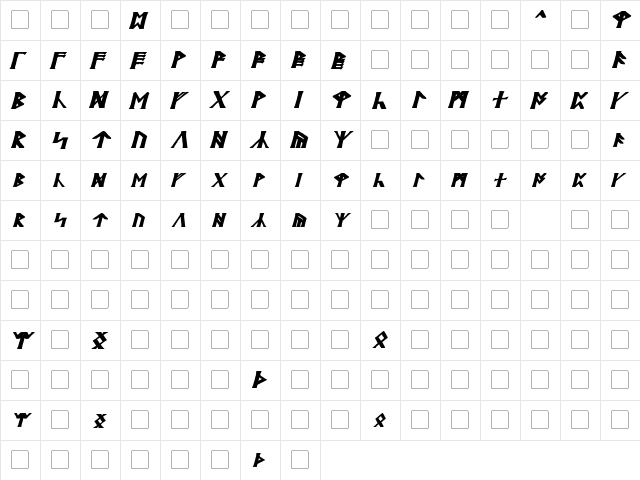
Britannian Bold Italic
Design Context for Britannian Typeface
Britannian is a composed and adaptable typeface that performs quietly and consistently across a wide range of design contexts. The dynamic lean of this cut emphasises speed and emphasis in any layout. Its bold stroke weight gives it real presence on the page.
Pro Tip: Try Britannian for annotation and caption copy alongside an upright companion — the contrast in angle creates a dynamic but ordered typographic system.